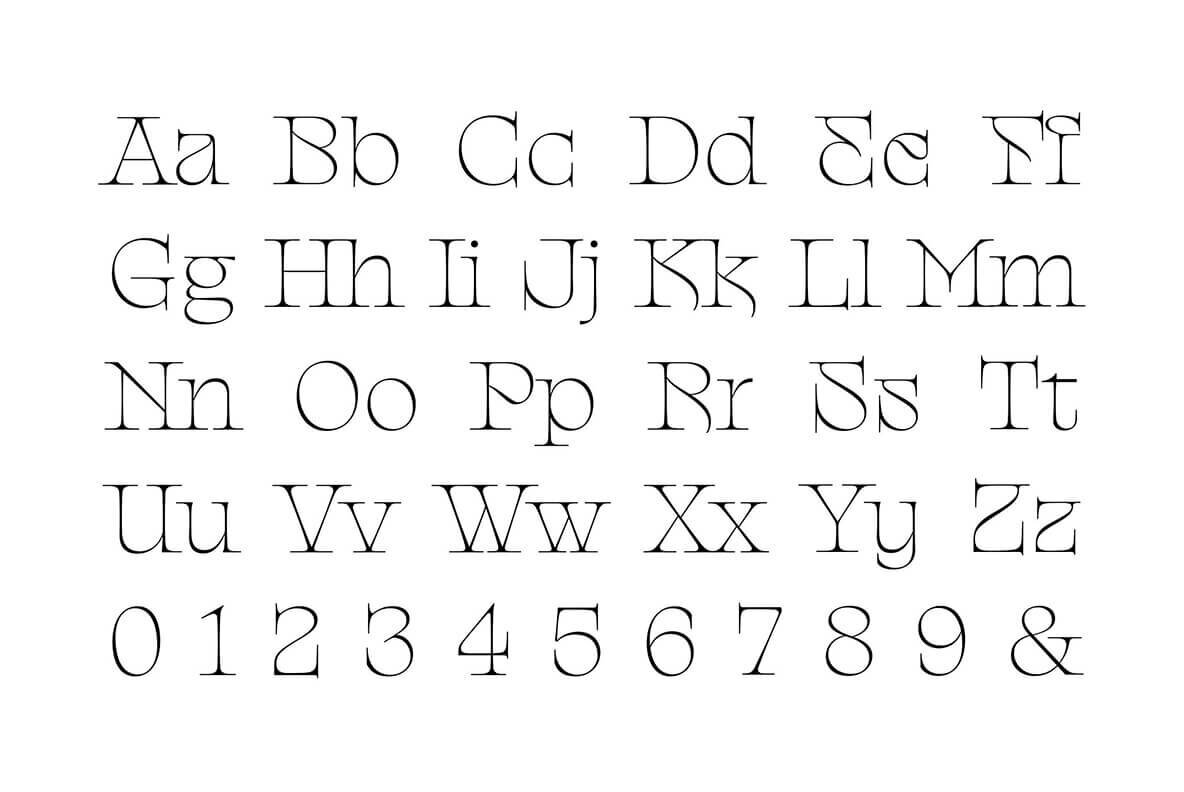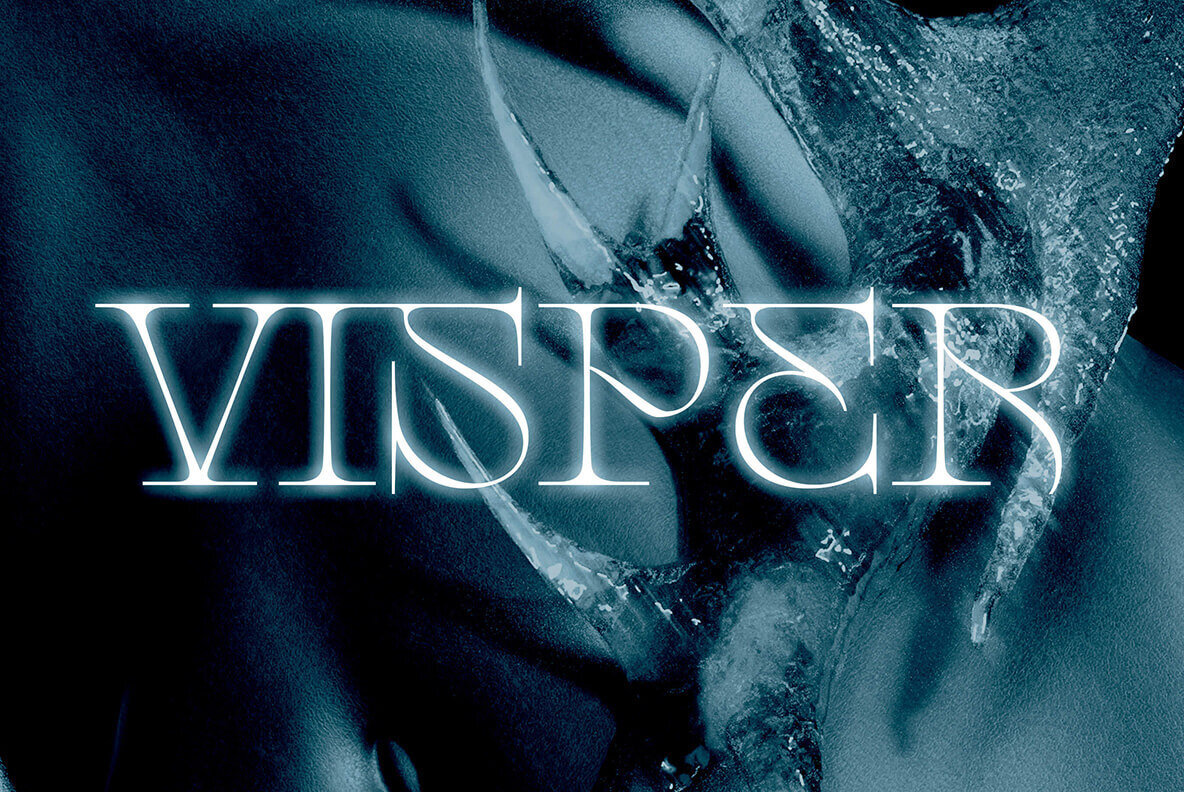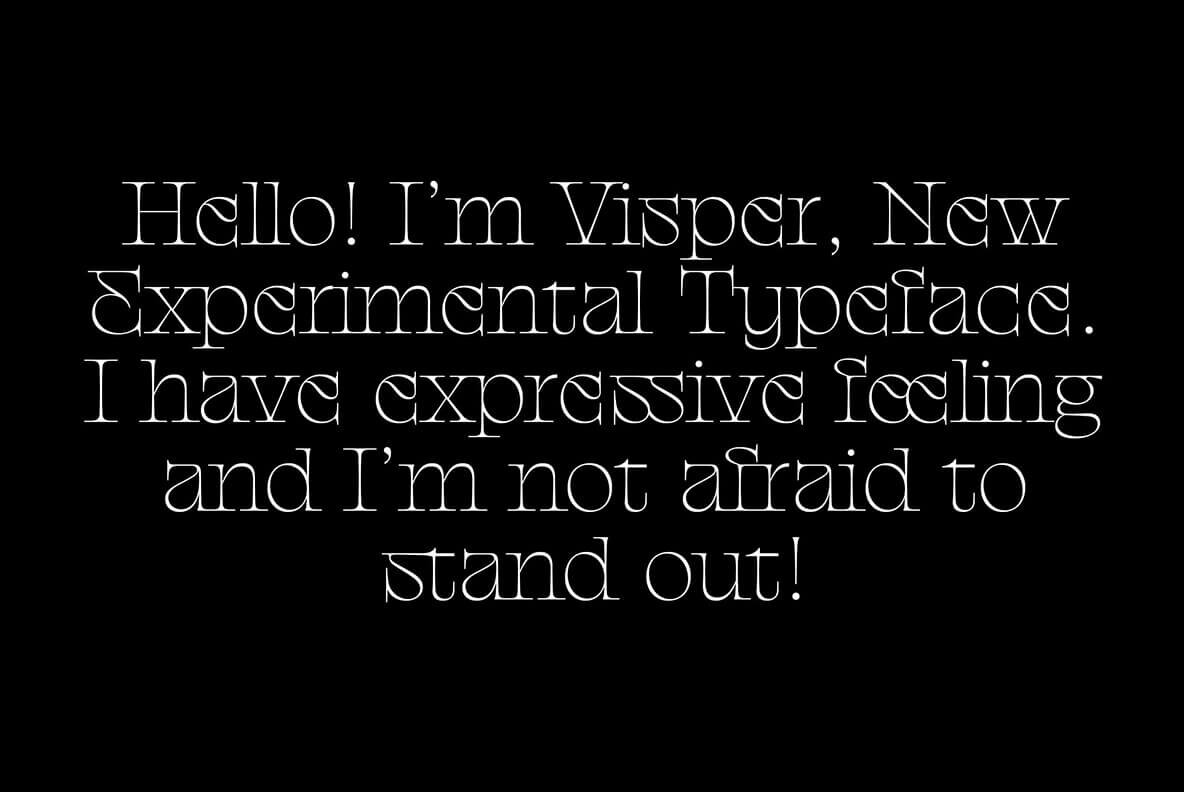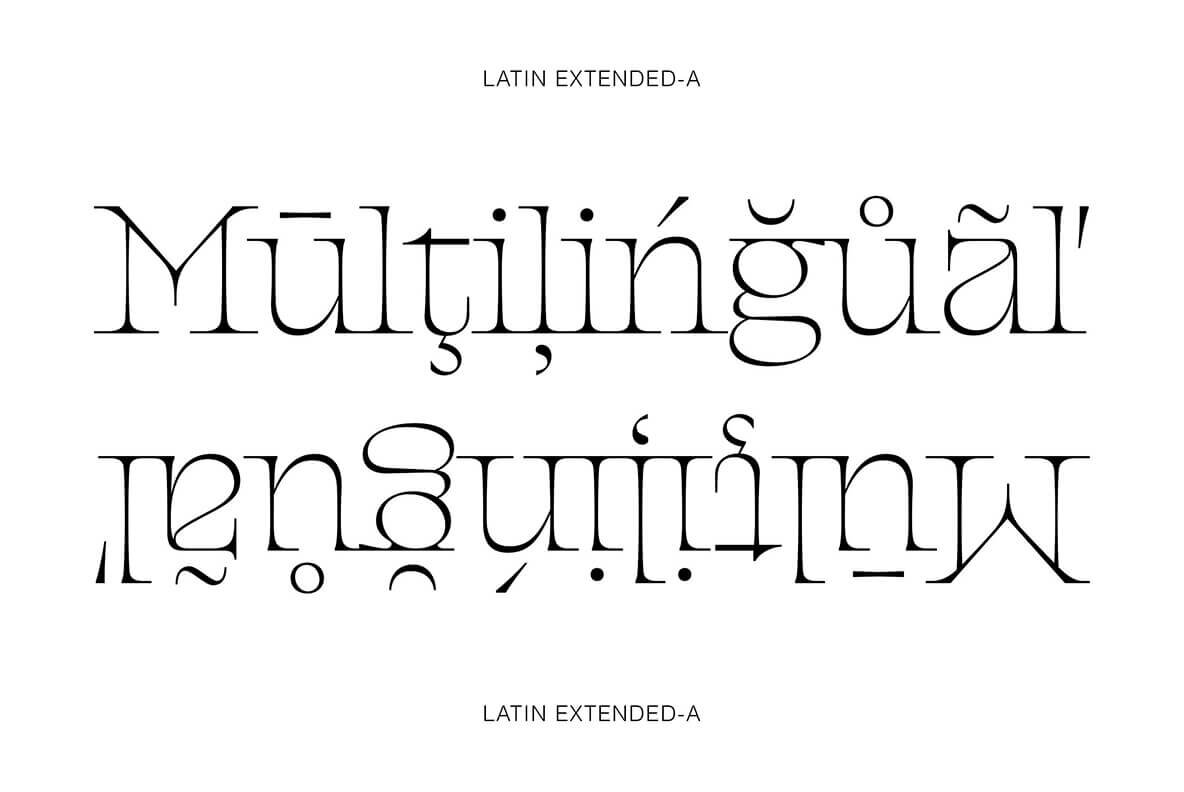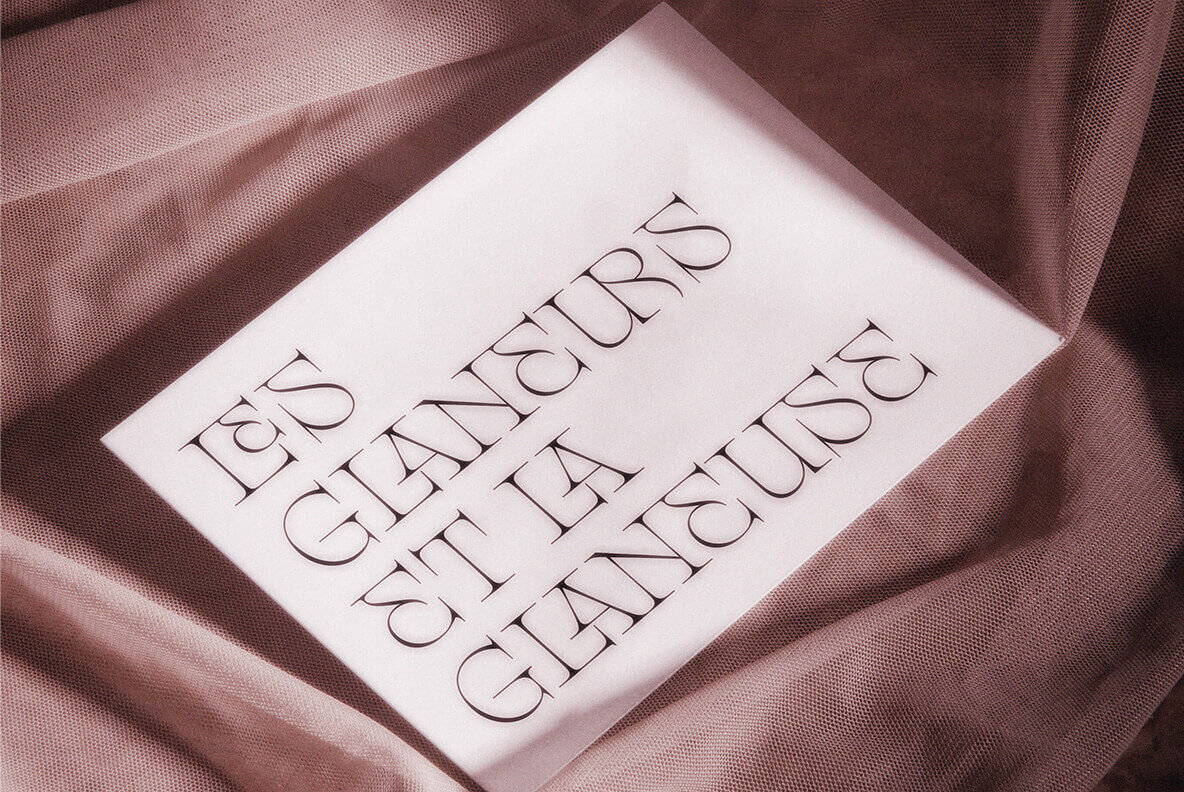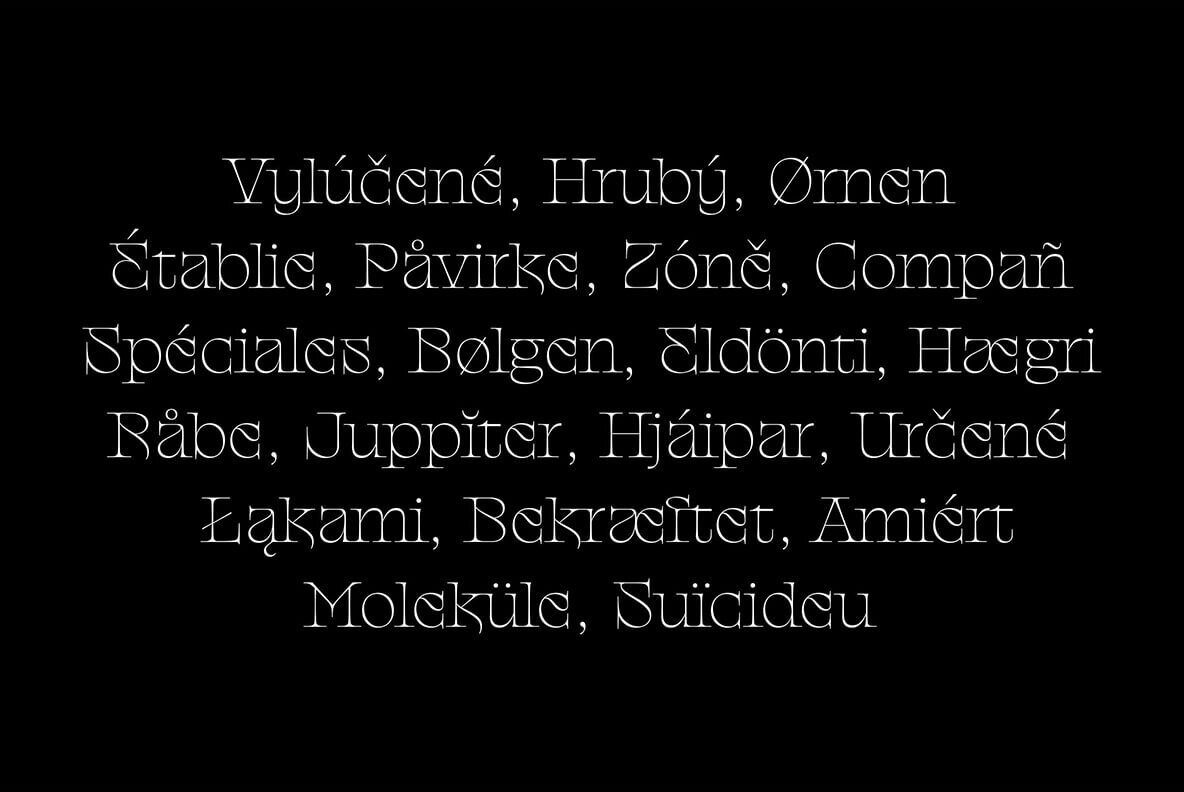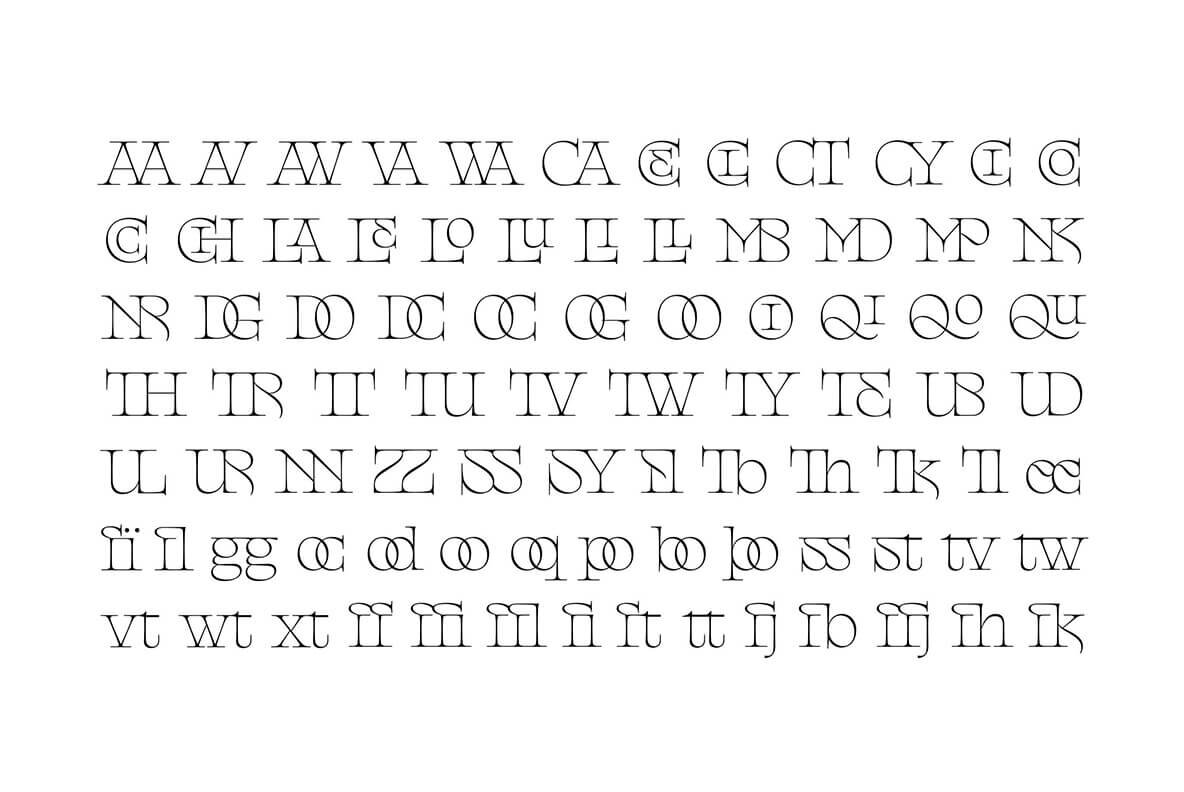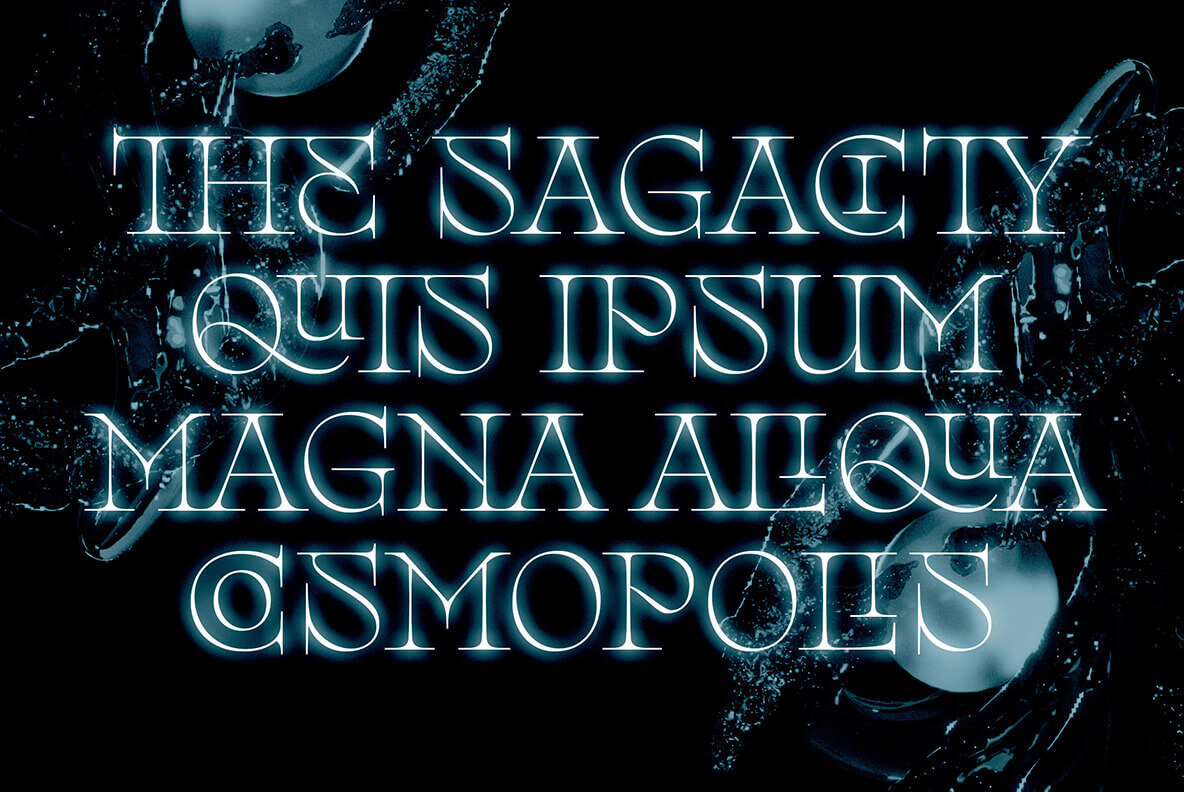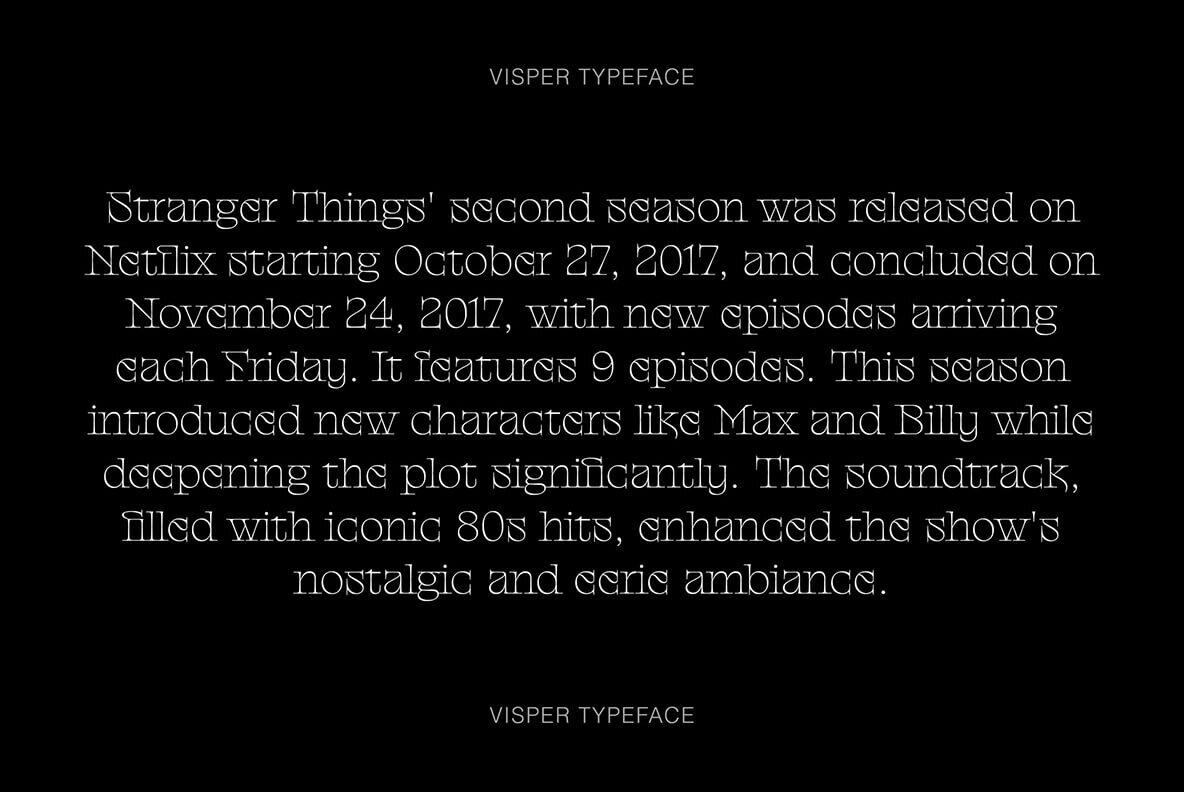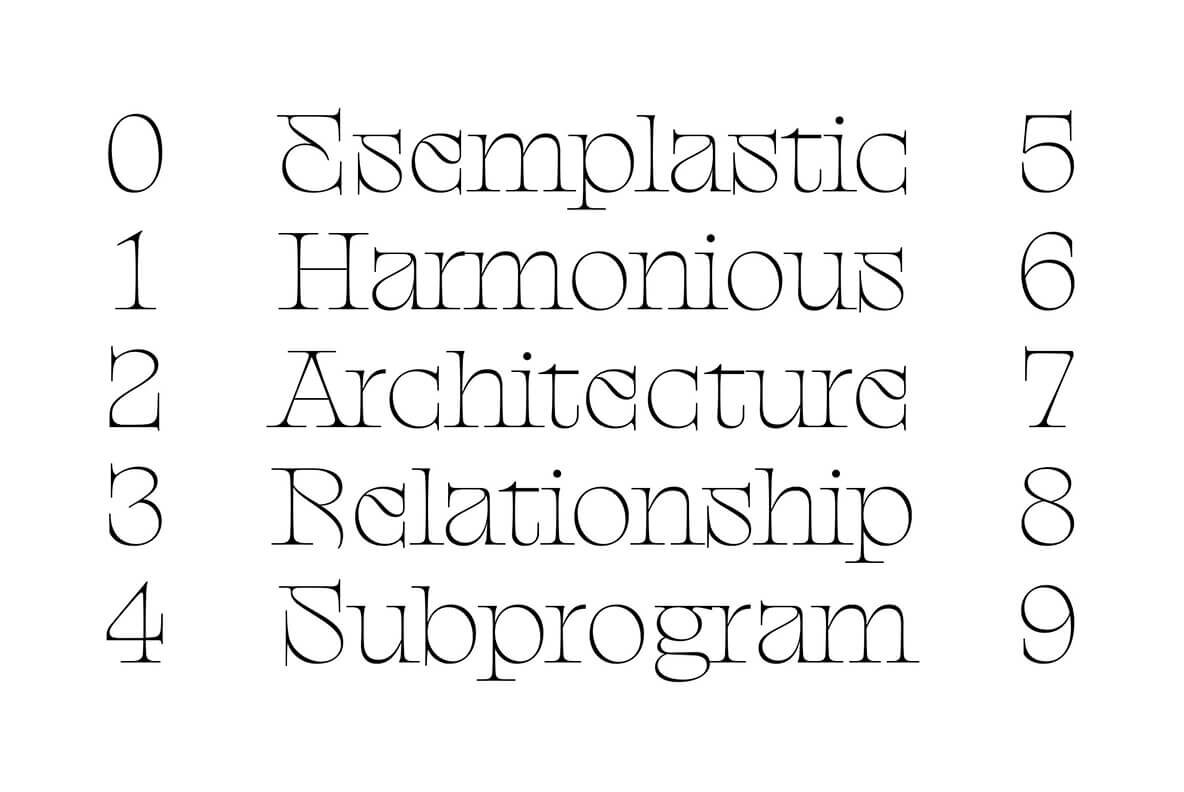
Visper Font
Visper Regular
Visper is a modern, experimental, display typeface that pushes the boundaries of contemporary typography. It has an eccentric and expressive character, making it a unique choice for daring projects. The letterforms feature a dynamic blend of traditional and modern elements, creating a captivating and unified design. Visper is ideal for posters, covers, titles, and logotypes where a bold statement is needed.